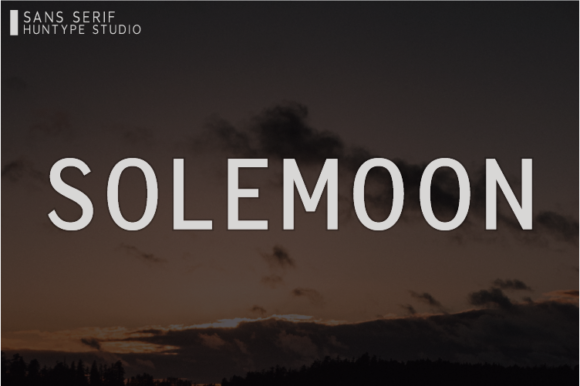
Dive into the world of Solemoon, a sans serif font family that exudes boldness and style. Designed with precision and crafted with elegance, Solemoon is the perfect companion for your creative endeavors.
Step into a realm of endless possibilities, where your words take center stage. Solemoon's clean and trendy letterforms make a striking impact, leaving an unforgettable impression on your audience. Whether you're designing captivating posters, crafting stunning logos, or creating eye-catching branding, Solemoon is the ultimate choice for making your vision a reality.
Unleash your creativity and elevate your designs with Solemoon's versatile nature. Its crisp lines and smooth curves adapt seamlessly to a wide range of projects, from sleek product packaging to heartfelt wedding invitations. Let Solemoon be your trusted partner, guiding you through the design process with its effortless charm and endless possibilities.
Experience the captivating allure of Solemoon. Its distinctive character adds a touch of sophistication to your work, while its readability ensures that your message shines through. Immerse yourself in a world of visual delight as Solemoon transforms your words into captivating works of art.
Join the creative revolution and embrace Solemoon as your font of choice. Its user-friendly design makes it accessible to both seasoned designers and those just starting their creative journey. Let Solemoon ignite your imagination and unlock a world of boundless design possibilities.